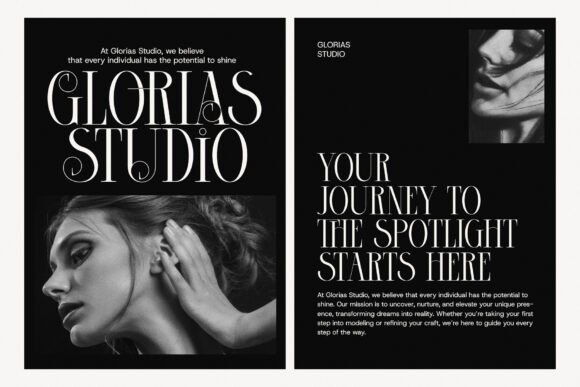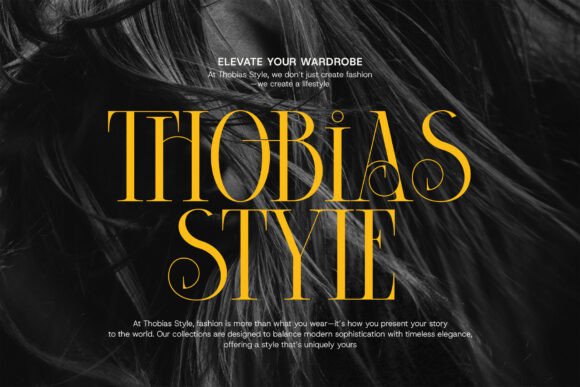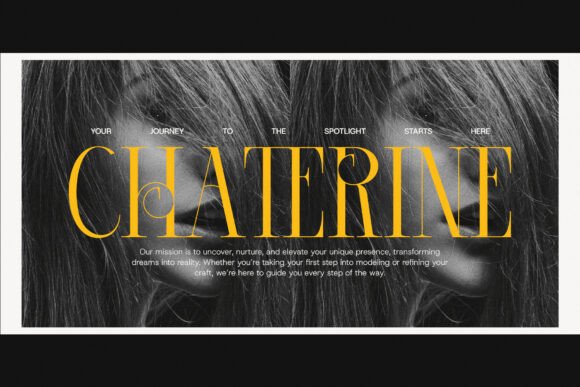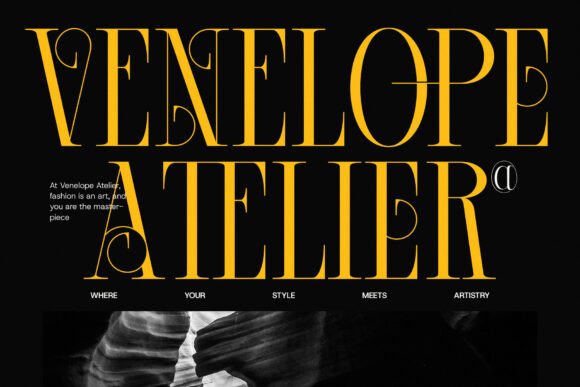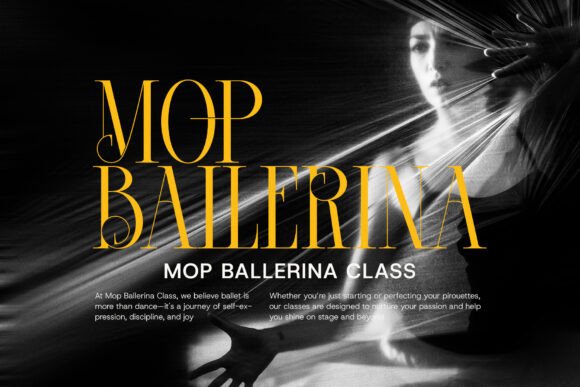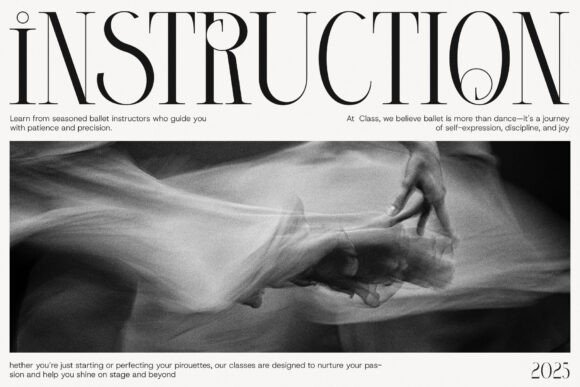
Introduction to Korlen Font
Have you ever stared at a blank canvas, eager to bring a creative project to life, only to be overwhelmed by the endless font options available? As designers, we’ve all been there. But what if I told you that there’s a font that can elevate your designs from ordinary to extraordinary? Enter the Korlen Font, a sophisticated and contemporary typeface that effortlessly blends modern style with timeless elegance.
The Korlen Font is a game-changer for designers seeking a high-quality design resource that exudes luxury and class. With its striking serifs and refined curves, this font is perfect for branding, logos, and product design, capturing attention with its clear readability and stylish flair. Whether you’re working on a free download project or a high-end commercial design, the Korlen Font adapts beautifully to any medium, providing both aesthetic appeal and functionality.
- Unique, hand-drawn design with a touch of elegance and sophistication, making it perfect for creative projects.
- Perfect for use in logos, branding, packaging, and other creative projects where a high-quality, unique font is required.
Honest Review: Korlen Font
As a designer, I’ve had the opportunity to work with numerous fonts, and I’m excited to share my thoughts on the Korlen Font. This font has been gaining popularity, and I wanted to see if it lives up to the hype.
What works well: ✨ The Korlen Font has a unique, modern design that’s perfect for creative projects. It’s a high-quality font that’s available for free download, making it an excellent design resource for anyone on a budget. The font is also highly versatile and can be used for a wide range of applications, from branding to web design.
- Unique and modern look
What doesn’t work well: ⚠️ While the Korlen Font is an excellent choice for many projects, it may not be the best option for those looking for a more classic or traditional font. Additionally, the font may not be as compatible with certain design software, so it’s essential to test it before using it for a project.
Overall, I’m impressed with the Korlen Font. Its unique design, high-quality, and free download make it an excellent addition to any designer’s toolkit. While it may have some limitations, it’s definitely worth considering for your next creative project.
Tips for Getting the Most Out of Korlen Font
For optimal results, use Korlen Font in a design project where you want to add a touch of elegance and sophistication. You can also experiment with different font sizes and styles to create a unique look. Additionally, make sure to use a high-quality design resource like Korlen Font to ensure that your design looks professional and polished.
Korlen Font is a versatile font that can be used in a variety of creative projects, including logos, branding materials, and digital presentations. It’s also a great resource for designers who want to add a touch of sophistication to their designs.